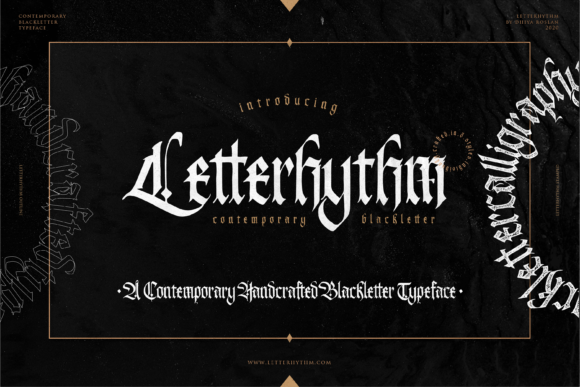
Journey into the world of Letterhythm Font, a captivating blackletter masterpiece that exudes a bold and distinctive aura. Immerse yourself in its intricate details, sharp edges, and mesmerizing curves that dance across your designs with unwavering elegance.
Picture this: your posters adorned with Letterhythm's commanding presence, leaving an indelible mark on the minds of all who behold them. Let the sweeping strokes and sharp serifs command attention, captivating audiences with their enigmatic charm.
Unleash your creativity and watch as Letterhythm transforms your words into mesmerizing works of art. Craft eye-catching headlines that leap off the page, demanding attention. Design logos that radiate power and sophistication, leaving a lasting impression on your clients.
Embrace the versatility of Letterhythm, seamlessly blending with a myriad of design styles. Whether you're seeking a vintage aesthetic or aiming for a thoroughly modern look, Letterythm harmoniously complements your vision.
Indulge in the exquisite craftsmanship of Letterhythm, meticulously designed to evoke a sense of timeless elegance. Its refined details and unwavering quality ensure that your designs stand out from the crowd, leaving a legacy of visual excellence.